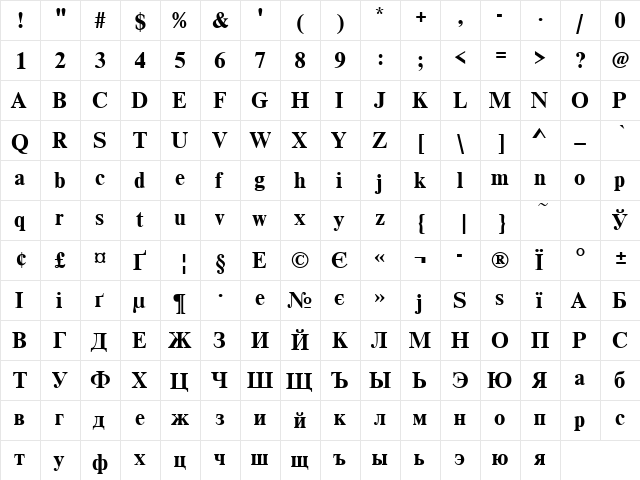
CyrillicEnglishTimesSSK Bold
Design Context for CyrillicEnglishTimesSSK Typeface
CyrillicEnglishTimesSSK is a composed and adaptable typeface that performs quietly and consistently across a wide range of design contexts. Its bold stroke weight gives it real presence on the page.